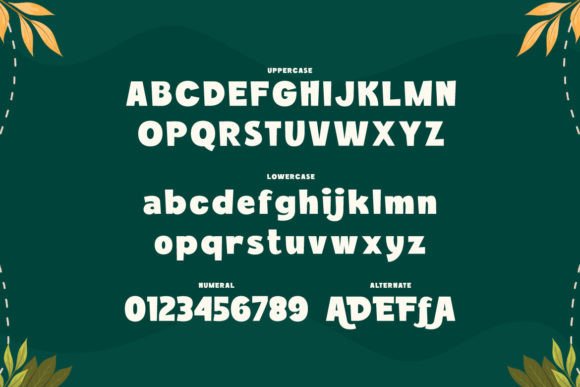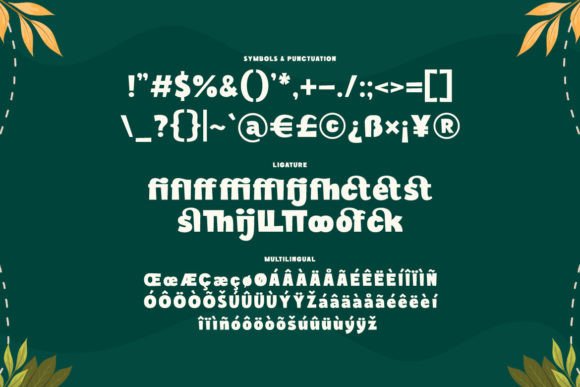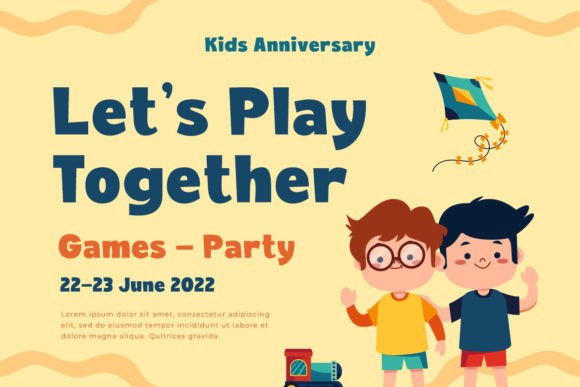
Introduction to Nomadic Font
Nomadic is a bold sans font.
It has fun and playful vibes This font is great for logo designs, quotes, album covers, business cards, and much more.
Key Features of Nomadic Font
Why Choose Nomadic Font?
Nomadic Font offers exceptional quality and versatility, making it a valuable addition to your design toolkit. Whether you’re creating for personal projects or commercial use, Nomadic Font delivers professional results.